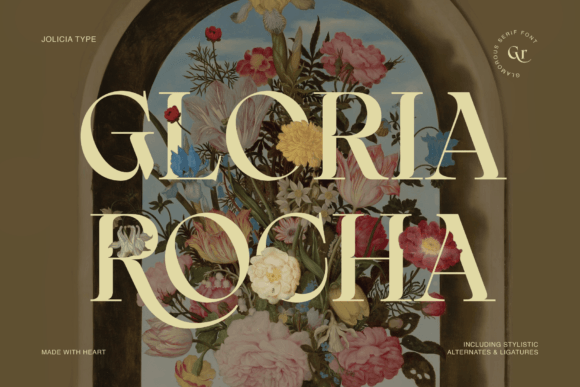
Introducing Gloria Rocha Serif Font: The Epitome of Glamour in Typography
In the world of typography, few fonts have managed to capture the essence of glamour and sophistication as effortlessly as Gloria Rocha. This exquisite serif font is designed to elevate your designs to new heights, offering a perfect blend of elegance and style. With its regular and italic styles, meticulously crafted ligatures, and alternates, Gloria Rocha is the go-to choice for designers seeking to add a touch of luxury to their projects.
Key Features of Gloria Rocha Font
- Regular and Italic Styles: Gloria Rocha offers two distinct styles, allowing you to convey sophistication and elegance in your designs.
- Meticulously Crafted Ligatures and Alternates: The font features beautifully designed ligatures and alternates, enhancing its beauty and versatility.
- PUA Encoded: Gloria Rocha is PUA encoded, making it easy to access all the amazing glyphs and ligatures.
Why Choose Gloria Rocha Font?
Gloria Rocha font is the perfect choice for designers seeking to add a touch of glamour to their projects. Here are some benefits of using this exquisite serif font:
- Elegance and Sophistication: Gloria Rocha exudes elegance and sophistication, making it perfect for high-end designs.
- Versatility: The font’s ligatures and alternates make it versatile, allowing you to use it in a variety of design projects.
- Easy to Use: With PUA encoding, accessing the font’s glyphs and ligatures is easy, making it simple to incorporate into your designs.
Design Applications of Gloria Rocha Font
Gloria Rocha font is suitable for a wide range of design applications, including:
- Branding and Logo Design: The font’s elegance and sophistication make it perfect for branding and logo design.
- Print Design: Gloria Rocha is ideal for print design, including brochures, flyers, and posters.
- Digital Design: The font is also suitable for digital design, including websites, social media graphics, and email marketing campaigns.
Typography Tips for Using Gloria Rocha Font
To get the most out of Gloria Rocha font, here are some typography tips:
- Use it as a Headline Font: Gloria Rocha is perfect for headlines, adding a touch of elegance and sophistication to your designs.
- Pair it with Other Fonts: The font pairs well with other serif and sans-serif fonts, making it versatile for a variety of design projects.
- Experiment with Ligatures and Alternates: Take advantage of the font’s ligatures and alternates to add visual interest to your designs.
Font Specifications
| Font Name | Gloria Rocha |
|---|---|
| Font Style | Serif |
| Font Weight | Regular and Italic |
| PUA Encoding | Yes |
| Ligatures and Alternates | Yes |
In conclusion, Gloria Rocha font is a stunning serif font that embodies the essence of glamour and sophistication. With its regular and italic styles, meticulously crafted ligatures, and alternates, this font is perfect for designers seeking to elevate their designs to new heights. Its PUA encoding makes it easy to use, and its versatility makes it suitable for a wide range of design applications.